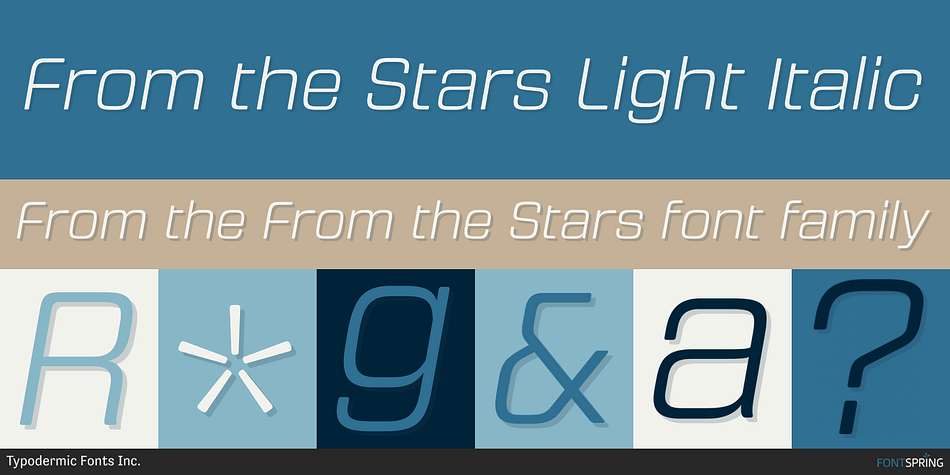
From the Stars Light Italic
From the Stars is a sans serif font family. This typeface has fourteen styles and was published by Typodermic Fonts Inc.
Welcome to the world of industrial design and technology with From the Stars, the pragmatic sans-serif rectilinear typeface that will take your design game to the next level.
Inspired by the ultra-modern industrial design, From the Stars is a powerful typeface that features a tight style and closed curves, making it an ideal choice for designers seeking to create clean and contemporary layouts. This typeface is a perfect reaction to the popularity of open types in the 1990s and 2000s, offering a new level of sophistication and professionalism to your designs.
From the Stars’ compact aesthetic and rounded rectangular form are tailored to complement new industrial design and technological gadgets. Whether you’re designing for digital products or creating prints, From the Stars is the ultimate typeface that will make your work stand out.
With seven weights and italics, From the Stars provides unparalleled flexibility to your designs, allowing you to achieve the perfect balance between elegance and readability. Its versatility makes it suitable for various applications, from bold headlines to body copy, making it an excellent choice for designers looking to make a statement.
Embrace the power of pragmatic design with From the Stars, the typeface that will elevate your work and make you stand out from the crowd.